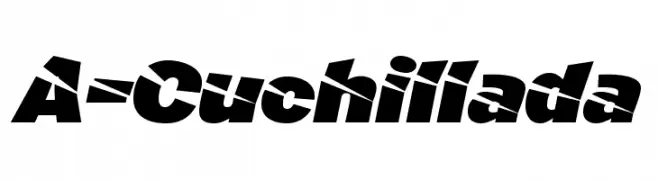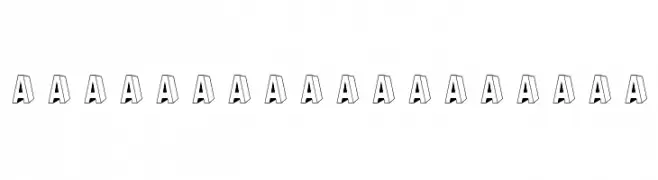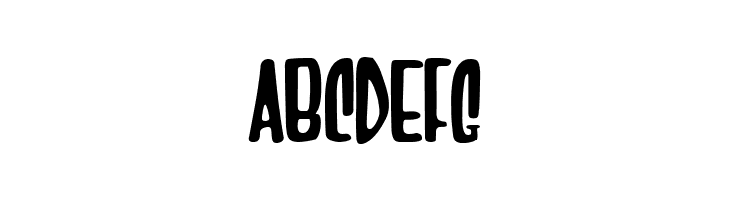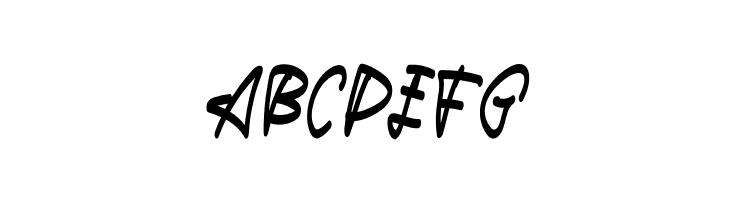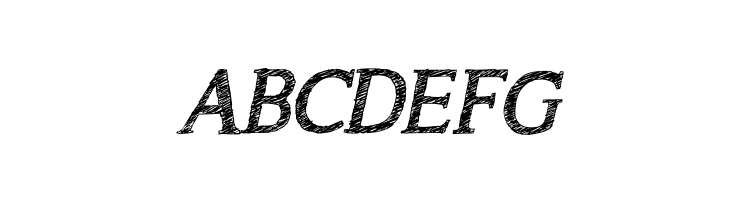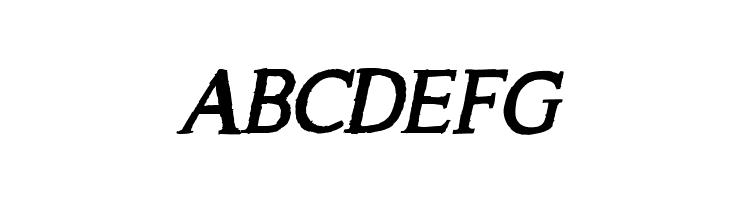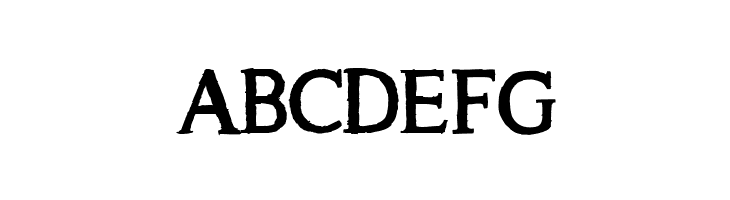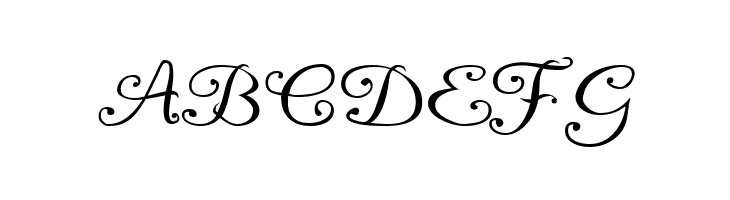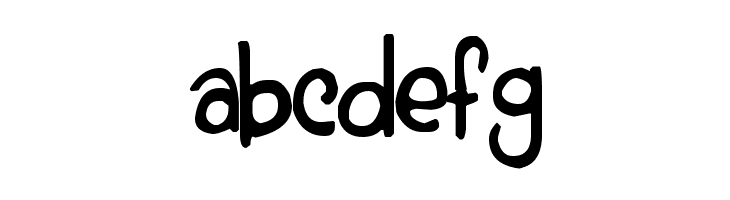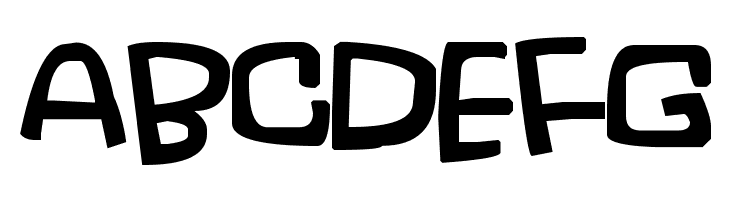
• A Red Bucket
A playful, handwritten font with rounded, bubbly characters.
• A Smile Can Change The World
A playful, bold, and hand-drawn font with a whimsical charm.
• A Song For Jennifer Bold Italic
A bold, italic serif font with a classic yet modern appeal.
• A Song For Jennifer Bold Reg
A bold, slightly distressed serif font with a hand-crafted feel.
• A Song for Jennifer Italic Reg
A bold, italicized font with a textured, hand-drawn appearance.
• A Truer Blue
A playful, hand-drawn font with irregular, whimsical letterforms.
• A Yummy Apology
An elegant, decorative script font with intricate swirls and embellishments.
• A-Cuchillada
A bold, angular font with dynamic cuts for striking designs.
• A-Ryal-Black-Block
A bold, three-dimensional block font with a modern, impactful style.
• A-Signature
A dynamic, handwritten font with a casual and fluid style.